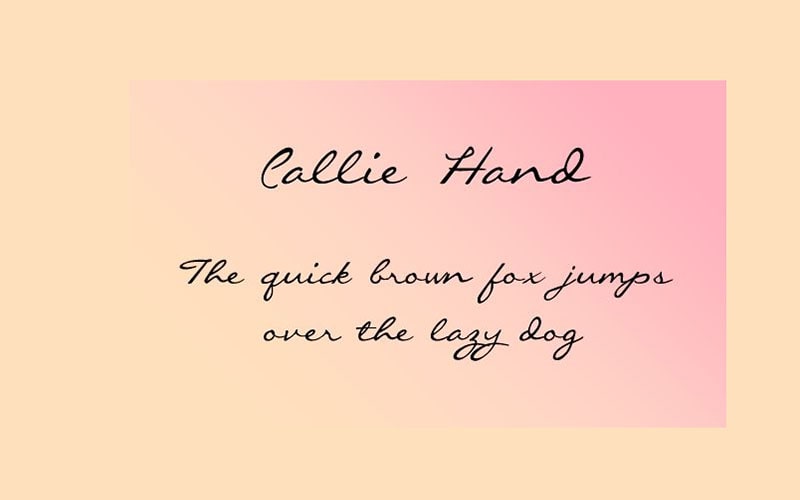
Callie Hand Font is a fantastic script handwritten font that has stylish texture. Each character has its different conditions, including a very special appearance and characteristics.
An American designer Callie Renee Roberson is known as the primary designer of this font and released it for the first time in 2011. This font supports multiple international languages.
The whole structure is designed in a professional way in which you will see that the designer has perfectly combined the height, width, and space between the letters.
Further, Preview the font map images we added here to get more ideas about this typeface. All letters are created with single strokes but the designer adds the italic touch to the characters.
Callie Hand Font
It can be used for various purposes such as covers, posters, emblems, titles, product design, special event cards, shopping bags, mugs, special quotes, and so on.